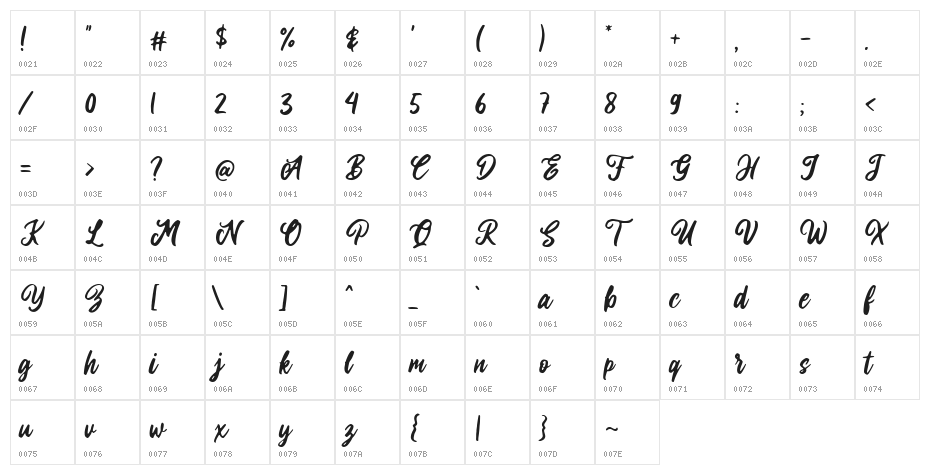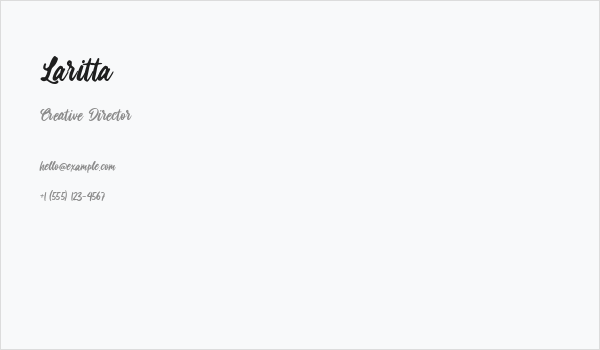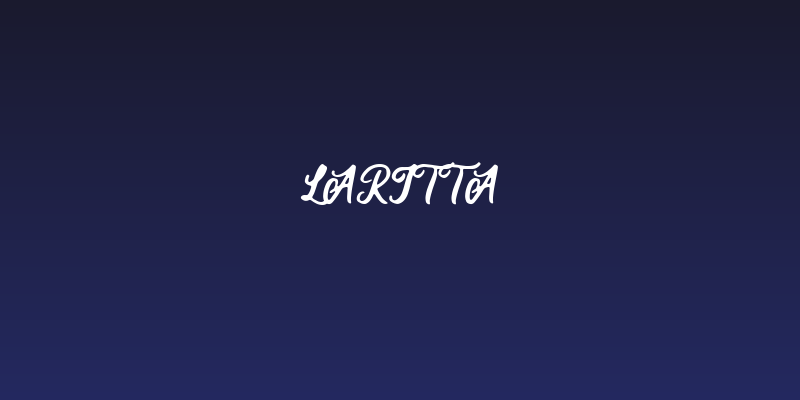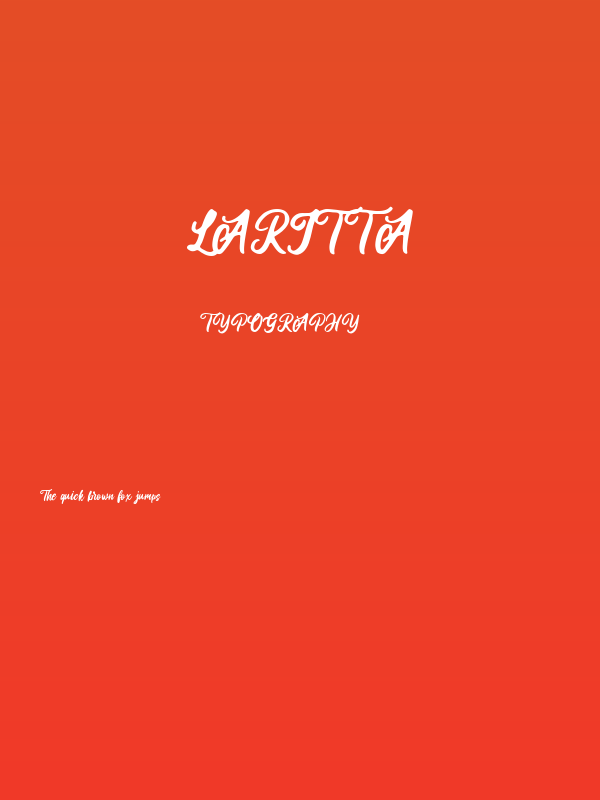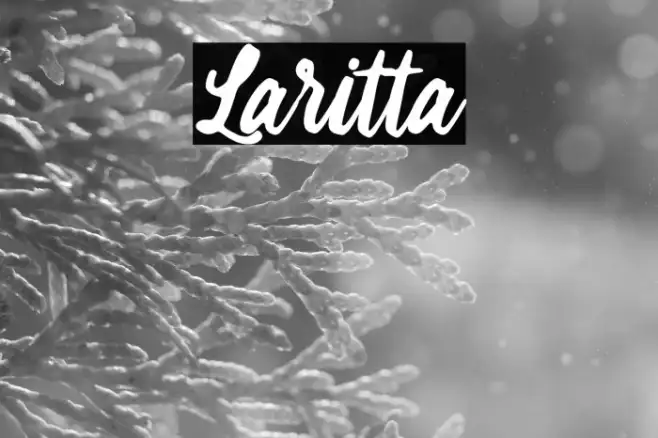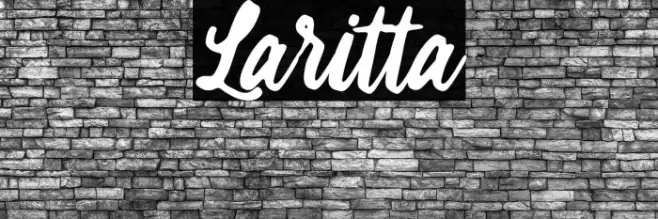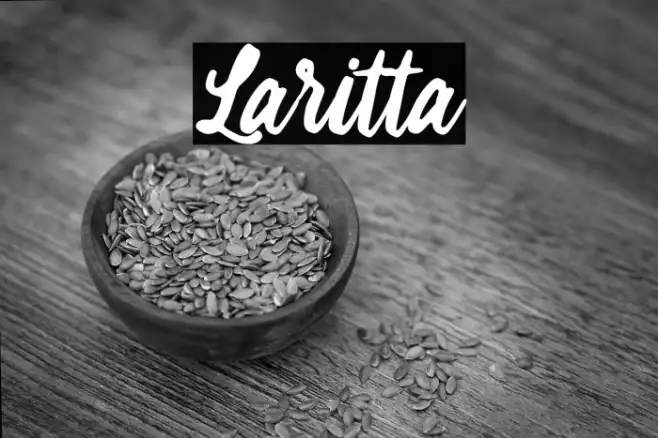
Laritta Font
Laritta Description
This font features a bold and expressive script style, characterized by its flowing, cursive letterforms. The uppercase letters are ornate, with elegant loops and flourishes that add a sense of movement and grace. The lowercase letters maintain a consistent style, offering a harmonious blend of curves and angles that create a dynamic yet readable appearance. The numerals and special characters are designed to complement the overall aesthetic, ensuring versatility across various applications. This font's bold strokes and artistic flair make it ideal for creative and decorative uses.
LARITTA UPPERCASE
LARITTA LOWERCASE
LARITTA OTHER CHARS